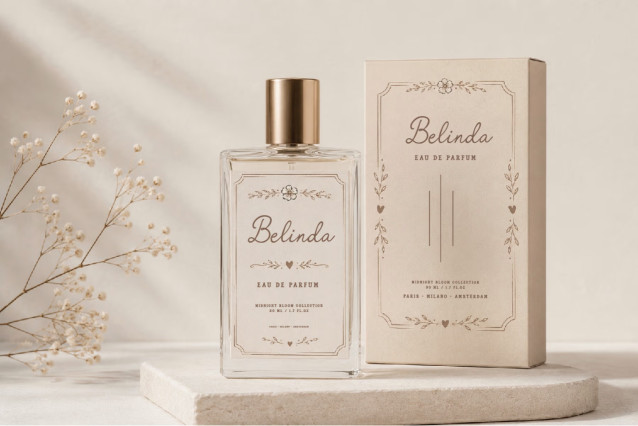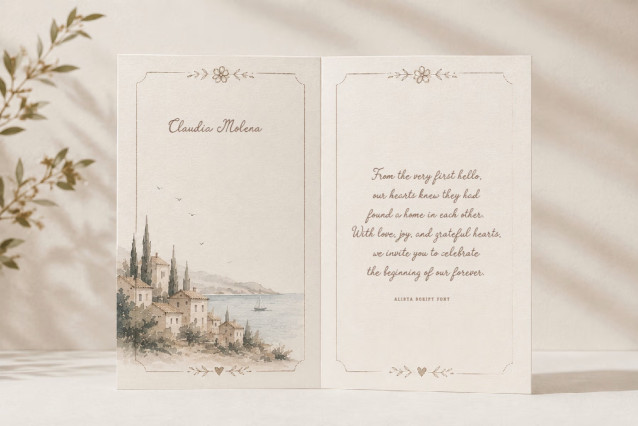
Alista Handmade Script Font
Introducing Alista Script, a gracefully crafted handmade font that brings a warm, personal, and organic touch to your creative projects. Designed with a clean monoline weight and fluid cursive strokes, this font beautifully mimics authentic handwriting with an elegant, modern twist.
Alista Script features a gentle, rhythmic flow that makes it incredibly versatile. Whether you are designing high-end branding materials or cozy DIY crafts, its natural charm adds an instant aesthetic appeal.
Features:
– Standard glyphs
– Ligatures
– Punctuation
– Multilingual support.